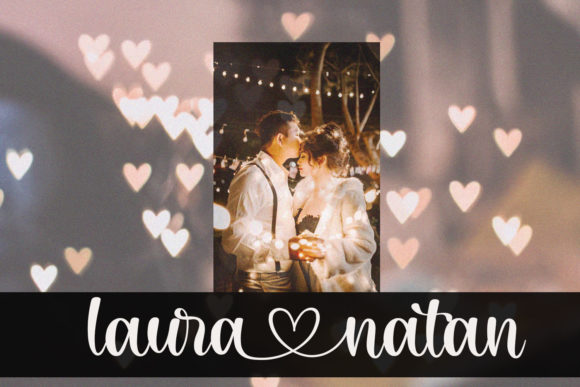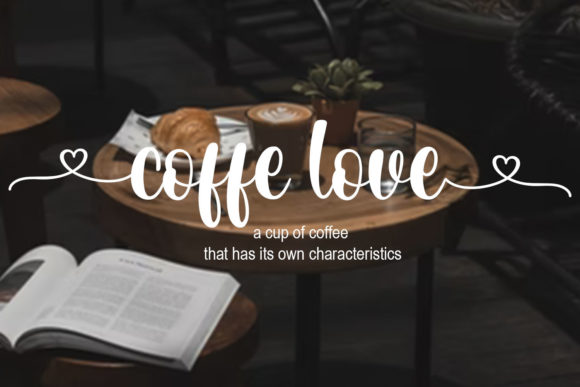
Love You Font
db-ku.com - Script & Handwritten -- Love You is a thin and modern handwritten font that is trending among designers today. Its luxurious appearance will make your creative ideas look more attractive. This beautiful font is suitable for advertising, book covers, logos, mock-ups, watermarks, magazines, food packaging design, various products, headers, coffee logos, brands, film titles, columns, videos, and any other project your imagination comes up with!